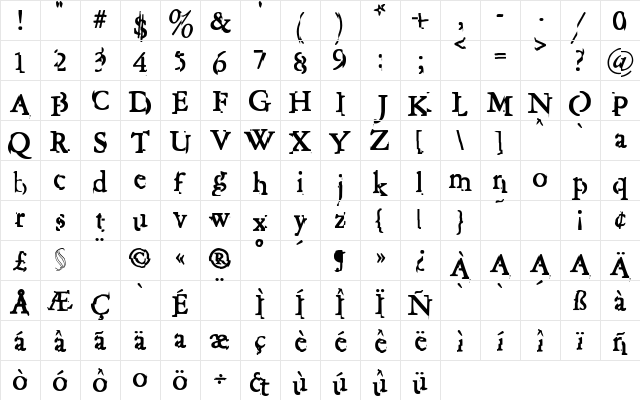
GarishMonde Regular Font Preview
GarishMonde Regular
GarishMonde Regular Font Details
Design Context for GarishMonde Typeface
GarishMonde is a composed and adaptable typeface that performs quietly and consistently across a wide range of design contexts.